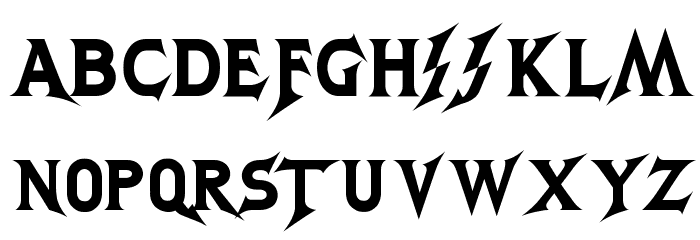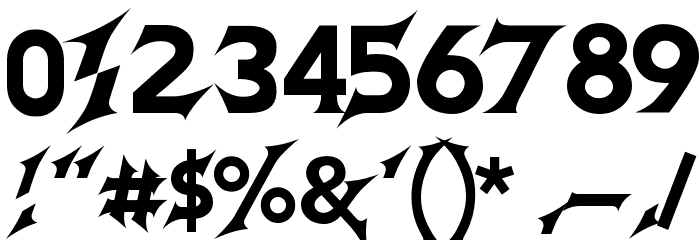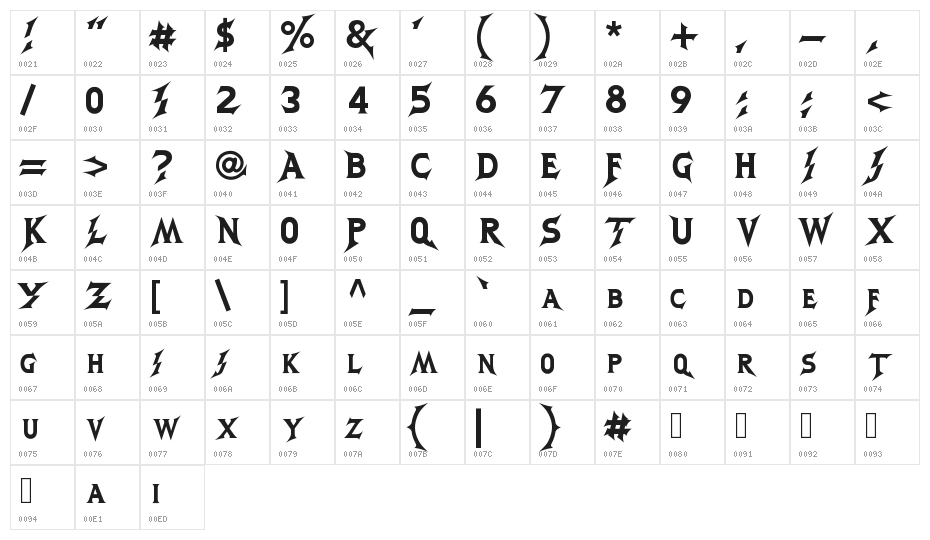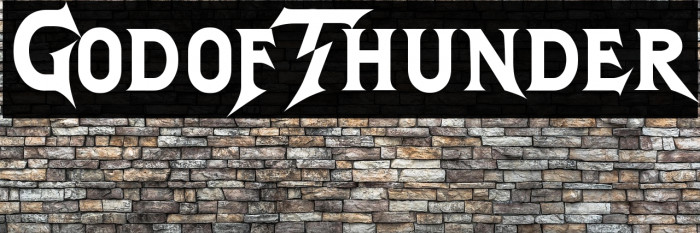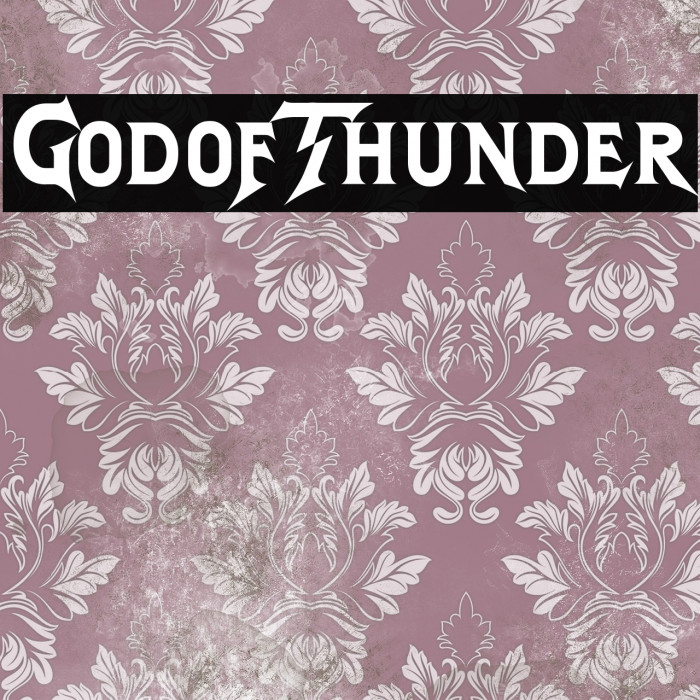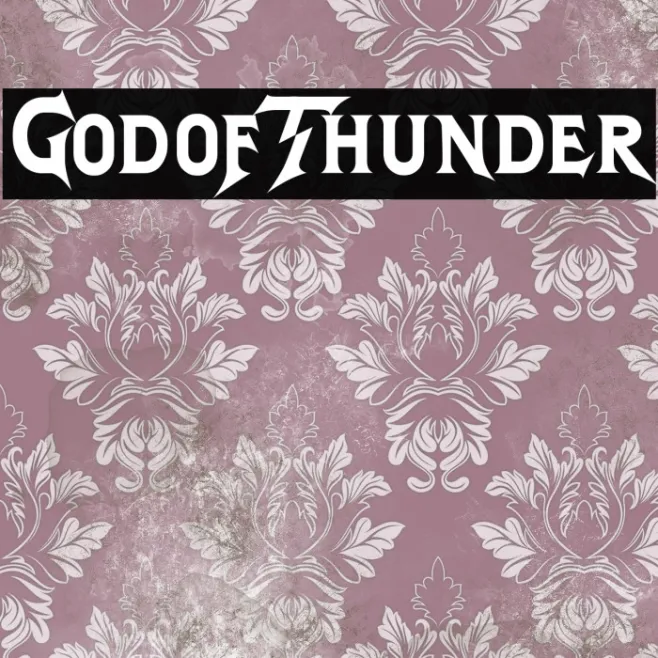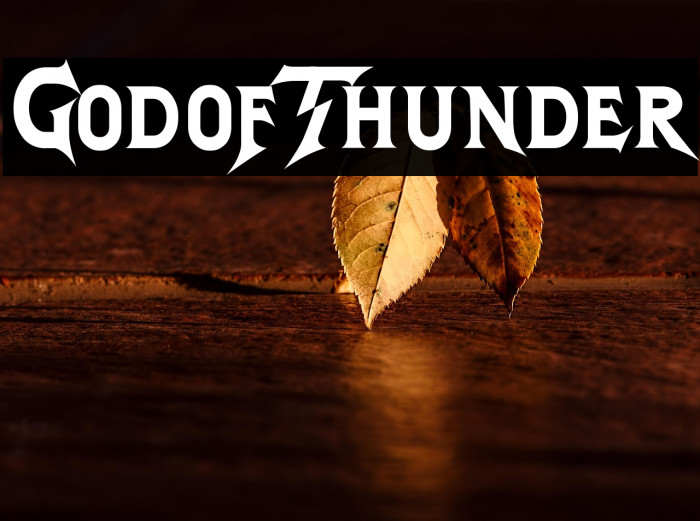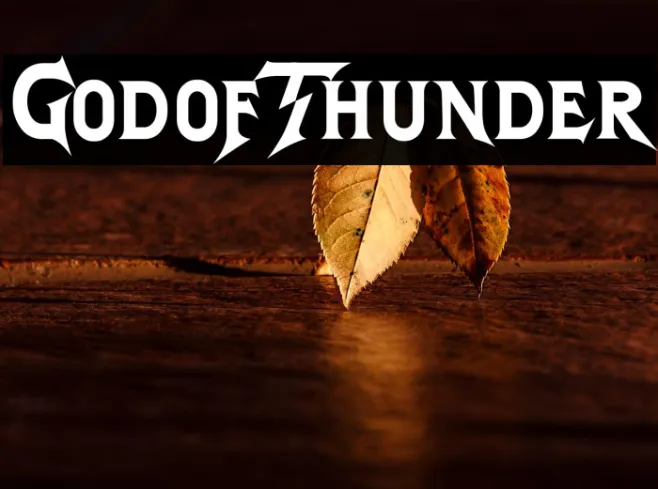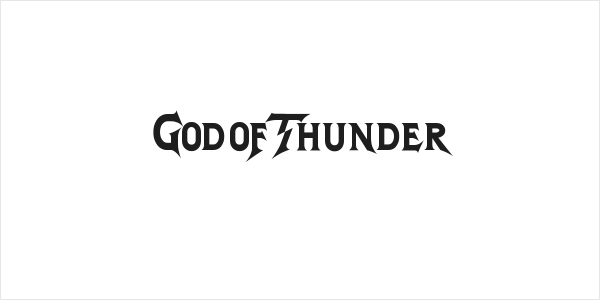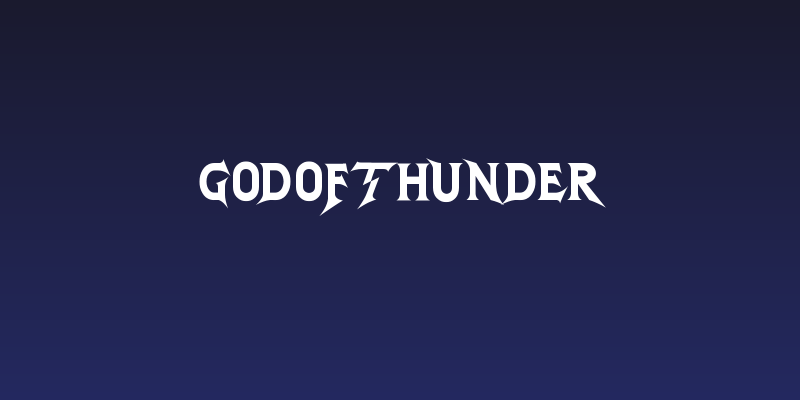
GodofThunder Font
This font exudes a bold and electrifying presence, characterized by its sharp, angular edges and dynamic lightning bolt motifs integrated into the letterforms. The uppercase and lowercase letters maintain a consistent style, with exaggerated serifs and a sense of movement that suggests energy and power. The numbers and special characters follow suit, offering a cohesive look across all glyphs. This design is reminiscent of rock and roll aesthetics, making it ideal for projects that require a strong, impactful visual statement.
A bold, electrifying font with angular edges and dynamic lightning motifs.
- Proposed Projects: Ideal for music album covers, band logos, event posters, and merchandise that require a strong, energetic visual impact.
- Overall Style: Modern, Decorative